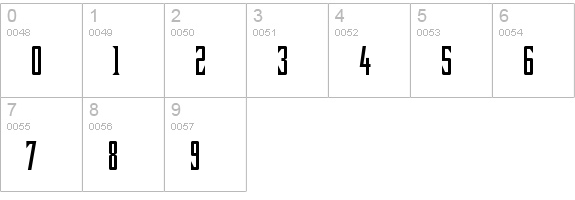
Rapture-Medium Font Details
Rapture-Medium is a balanced, medium-weight variant in the Rapture typeface family \xE2\x80\x94 well suited to sub-headlines, navigation, and balanced editorial work.
Introducing Rapture-Medium, a captivating and versatile font that will take your designs to new heights. This exquisite typeface combines elegance with a touch of modernity, making it perfect for a wide range of creative projects. With its sleek and sophisticated letterforms, Rapture-Medium effortlessly captures attention and adds a sense of refinement to any design. Whether you're working on a logo, branding materials, or editorial layouts, this font will elevate your visuals and leave a lasting impression. But what truly sets Rapture-Medium apart is its accessibility. This remarkable font is not only visually stunning but also freely available to download at FontsMarket.com. Yes, that's right, you can have this exceptional typeface at no cost, allowing you to unleash your creativity without any limitations. Designed with attention to detail and precision, Rapture-Medium offers a wide range of characters, including uppercase and lowercase letters, numerals, punctuation marks, and special symbols. Its seamless legibility ensures that your message will be conveyed effortlessly, while its subtle curves and balanced proportions add a touch of sophistication to your designs. Whether you're a professional designer or a passionate hobbyist, Rapture-Medium is the perfect addition to your font collection. Its versatility and timeless elegance make it suitable for various projects, from print materials to digital platforms. This font will undoubtedly become your go-to choice whenever you need to make a statement. So why wait? Embrace the beauty and freedom that Rapture-Medium offers and download it for free at FontsMarket.com. Let your creativity soar and watch as your designs come to life with the enchanting charm of this remarkable font. The possibilities are endless when you have Rapture-Medium at your fingertips.